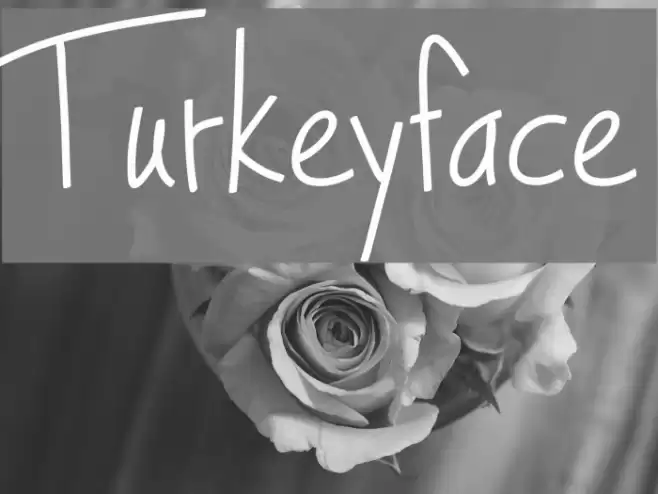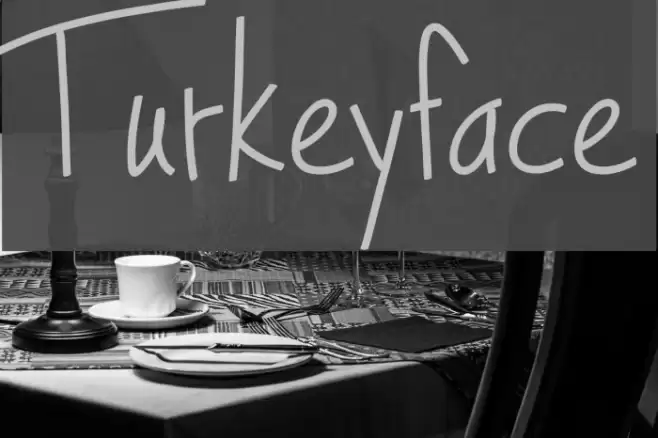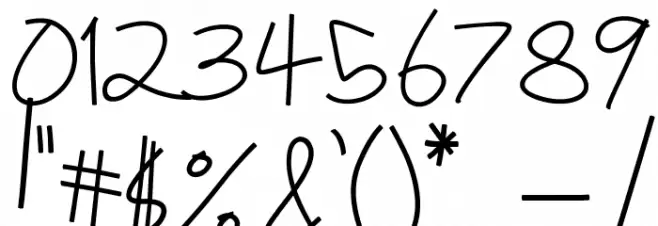
Turkeyface Font
Turkeyface Description
This font features a playful and casual handwritten style, characterized by its irregular and slightly whimsical letterforms. The uppercase letters are tall and narrow, with a slight slant that adds a dynamic feel. The lowercase letters maintain a consistent flow, with rounded edges and a friendly appearance. Numbers and special characters follow the same informal style, making the font suitable for creative and informal projects. The strokes are consistent in width, providing a uniform look across all characters. This font's unique personality makes it ideal for projects that require a touch of fun and creativity.
A playful, handwritten font with a casual and whimsical style from Uncategorized fonts.
- Proposed Projects: Ideal for greeting cards, children's books, playful branding, and casual invitations.
- Overall Style: Casual
- Use Case: Headlines, Logos, Informal Text